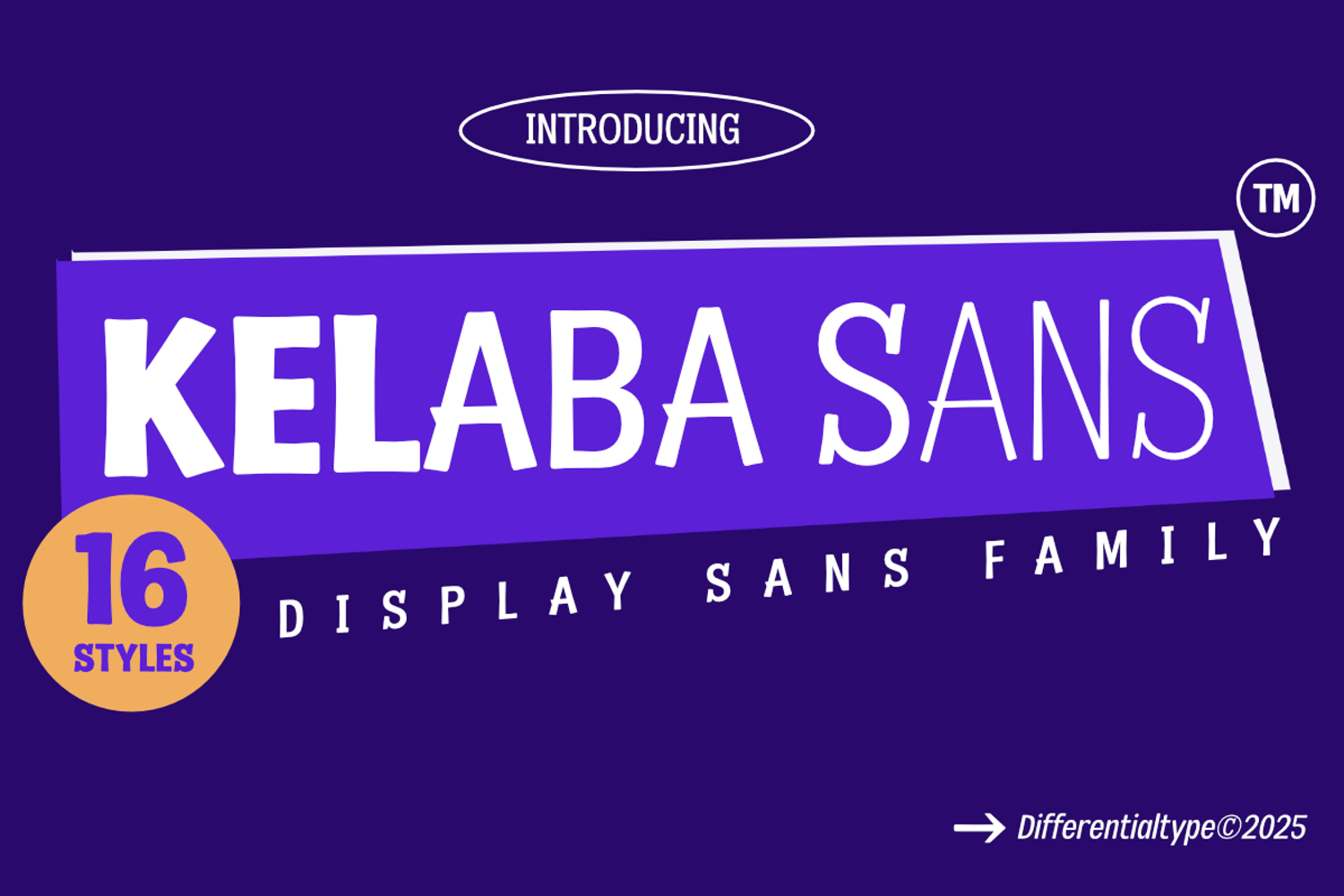
Kelaba Sans
Kelaba Sans is a striking and authoritative sans-serif display family, engineered for designers seeking a powerful yet harmonious typographic presence. It masterfully balances a bold, impactful appearance with essential legibility, ensuring your message is both seen and understood. This typeface boasts a strong character, making it the perfect choice for high-impact applications, whether you're crafting memorable headlines, commanding news titles, or creating a distinctive element within a logo or compelling product branding. Kelaba Sans ensures that every piece of text, regardless of its size or role, stands out with confidence and clarity.
The versatility of the Kelaba Sans family is truly exceptional, offering a comprehensive range of 16 styles, from the delicate Thin weight to the uncompromising Extra Bold, each accompanied by a matching Italic. This expansive toolkit provides ultimate flexibility for any design project. Utilize the heavier weights to forge powerful visual anchors in display work, or select the lighter and standard weights to form easily readable body text. Kelaba Sans is the definitive, all-in-one sans-serif solution designed to elevate any visual identity with its robust style and dependable readability across all media.